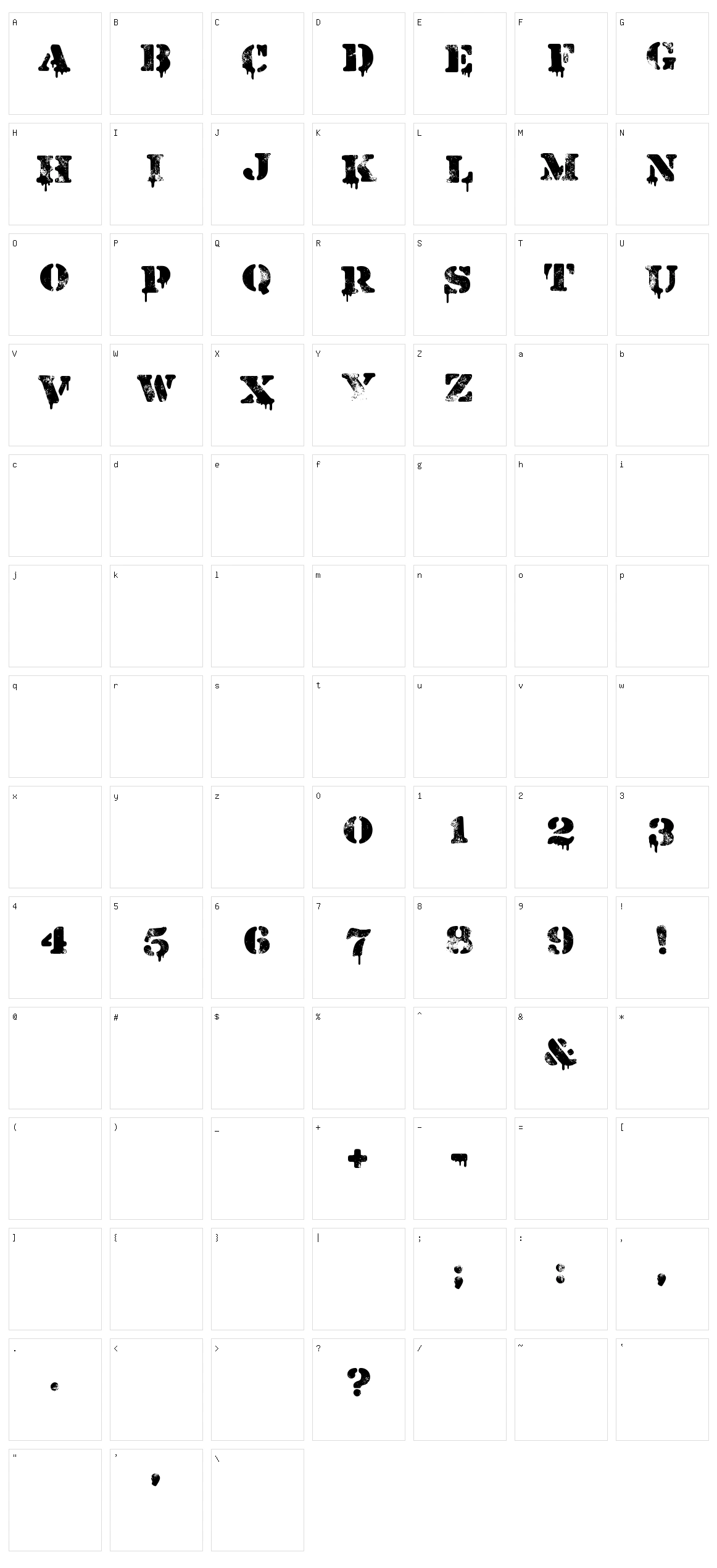
The free font Restricted Area is carefully designed by imagex, showcasing a thoughtful balance of creativity and usability and falls under the Stencil font style. When you download the ZIP file, it contains only 76.55 KB of font files, making it lightweight and quick to download. Please review the license details below to understand permitted usage and distribution rights. If license information is not available, we recommend using this font for personal projects only or contacting the author directly for commercial usage permissions.